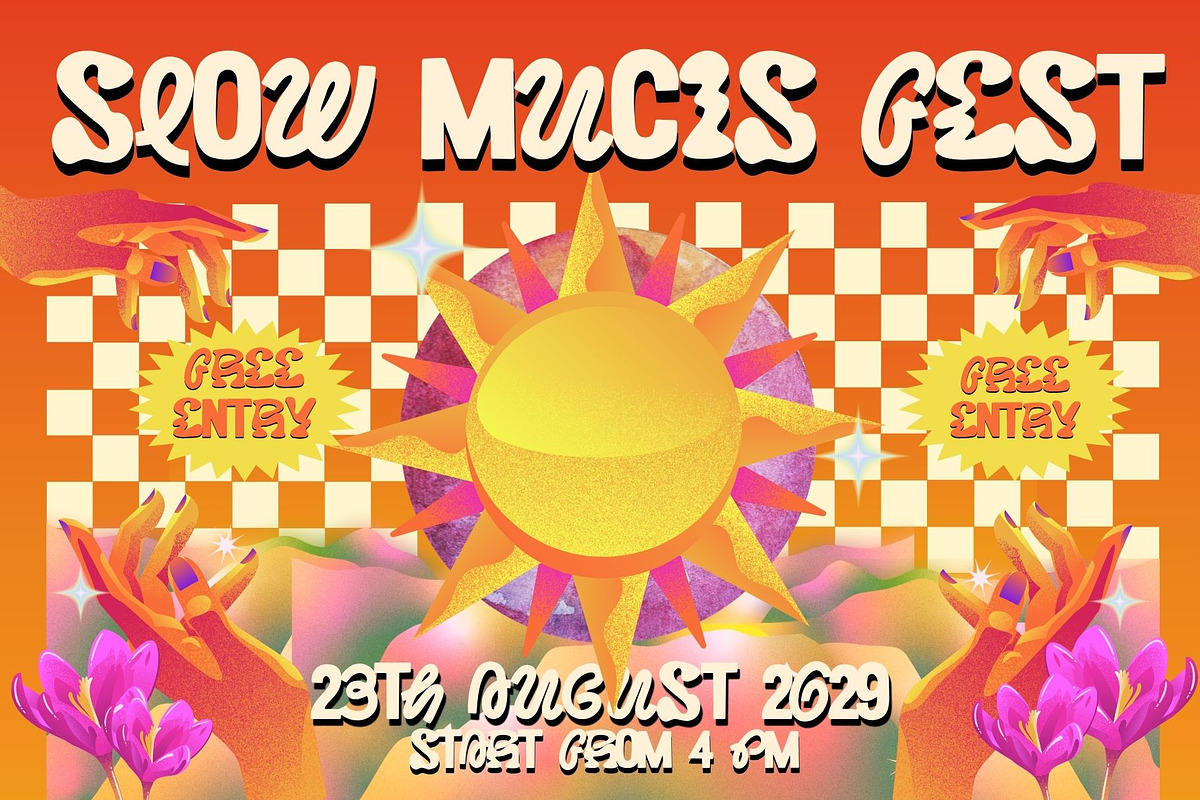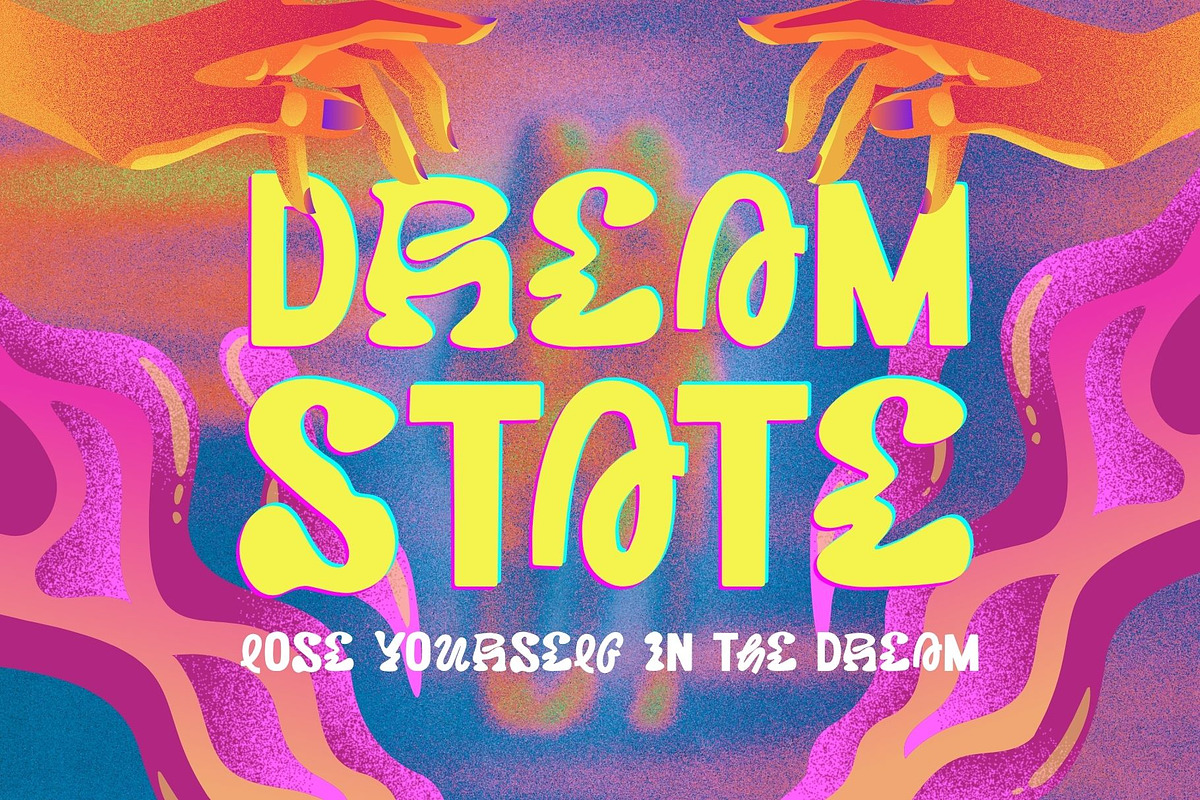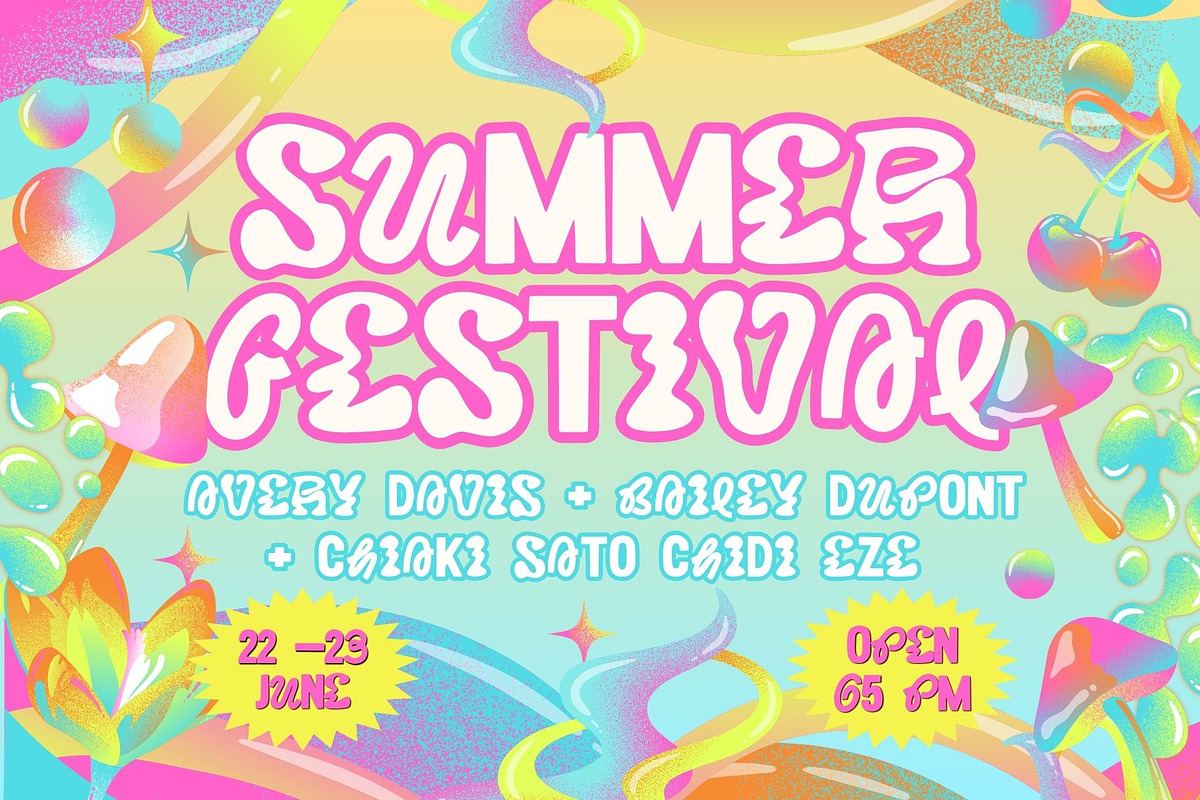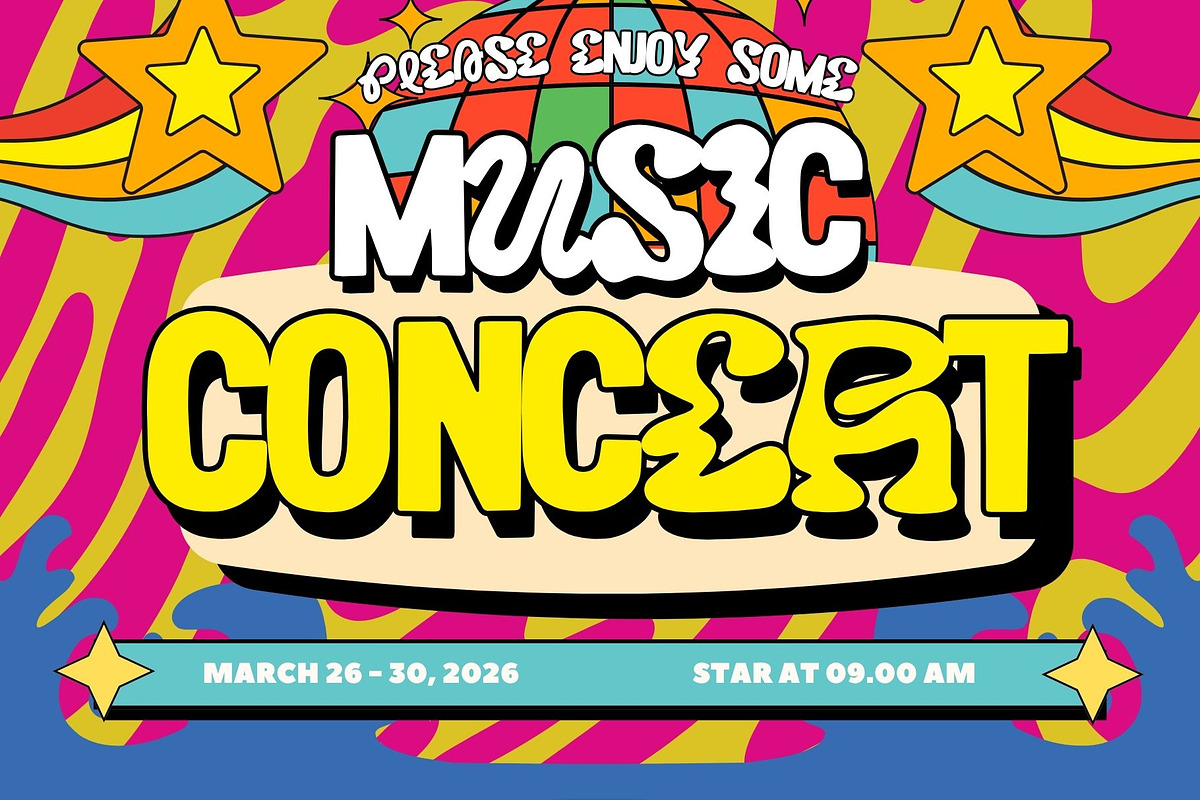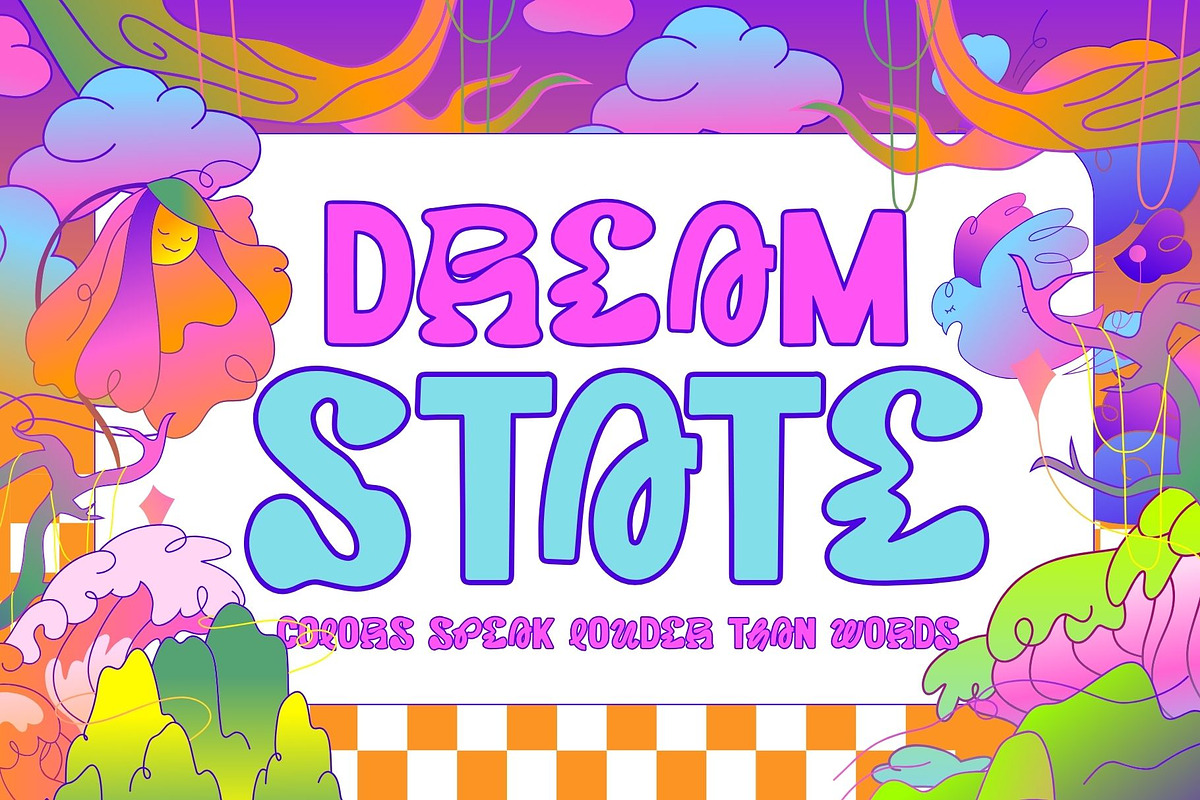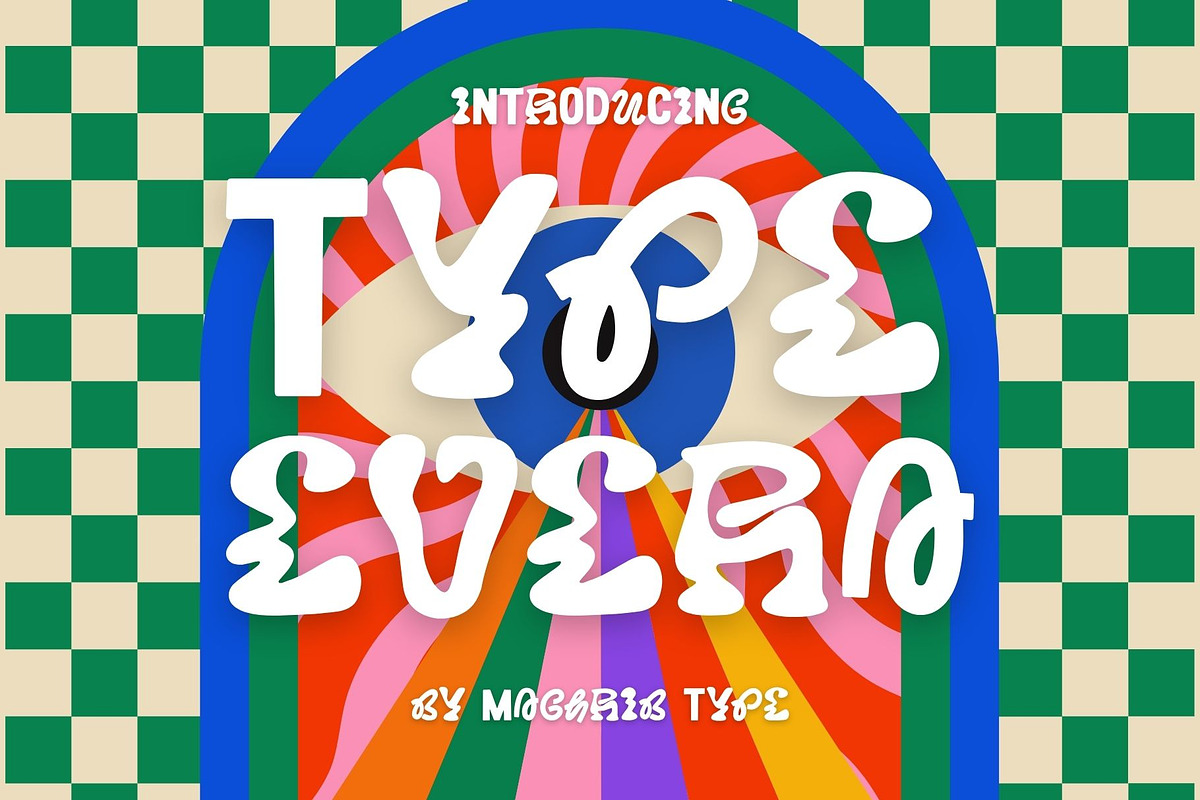
Typeevera
Typeevera is a bold and expressive display font inspired by psychedelic dreamscapes, groovy retro vibes, and playful 70s aesthetics. With its fluid curves, organic shapes, and slightly distorted letterforms, this typeface captures a sense of movement, imagination, and surreal storytelling.
Designed to stand out, Typeevera blends nostalgic charm with modern creativity—perfect for eye-catching posters, music events, branding, editorial layouts, and vibrant digital content. Each letter feels alive, giving your design a dreamy, funky, and unforgettable personality.
Whether you're creating a retro festival poster, a bold typographic composition, or a playful branding concept, Typeevera brings a unique visual rhythm that instantly grabs attention.
Music posters & festival designs Retro & psychedelic branding Editorial headlines Social media graphics Album covers & creative projects
Let your creativity flow and lose yourself in the dream with Typeevera.